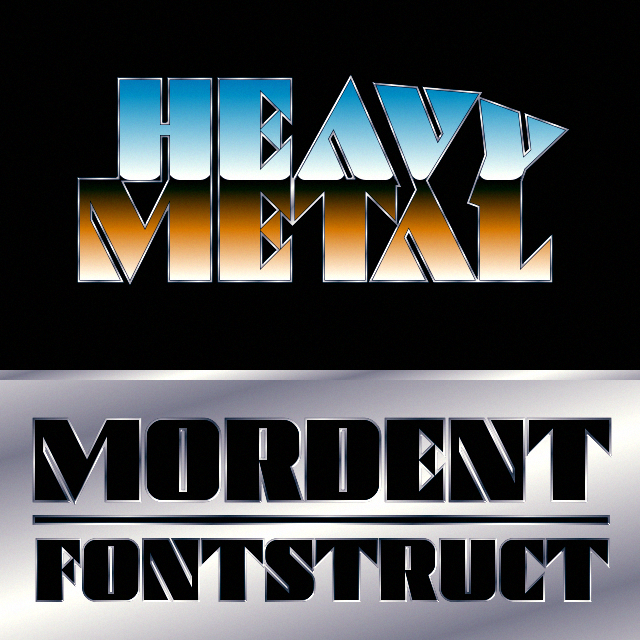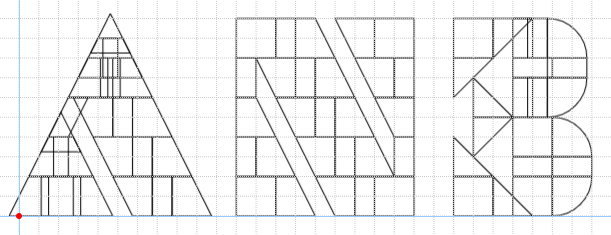
Love the mix of soft corners and sharp angles
Great work as usual. I like the retro look of it
Great font and wonderful first sample: very good adaptation of the logo of the great comic magazine "Heavy Metal" (which gave me so many good moments). I love the chrome effect you've given it.
The font is amazing; the sample masterful.
Great font and what a sample!